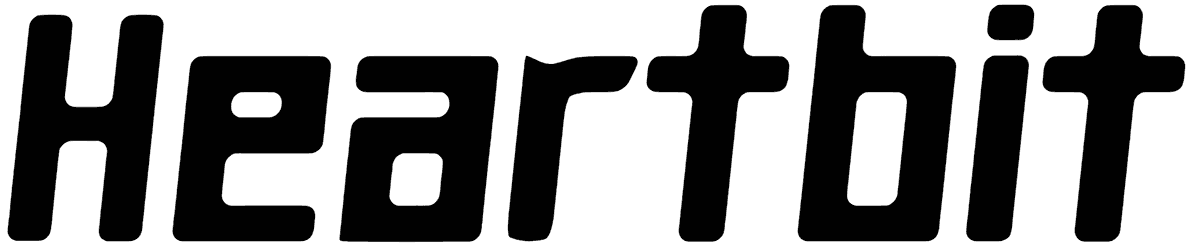
Heartbit Font
Heartbit is a stylish font that seems entertaining to the viewers. This techno font has a pleasant vibe, and you can use it for several cases, such as posters, video games, and advertisements.
The Heartbit font’s letters are bold and have a semi-square shape, catching your attention. Moreover, they are italicized with sharp edges, boosting the audience’s energy. So take it now and impress them.
The Heartbit typeface, created by Chris Ngalu is a sans serif display typeface inspired by the 90’s graphic designs and style of art.
The 90’s had a fun, vibrant, geometric, and pixelated style. The Heartbit typeface is based
off those elements but in a cool modern way without being too busy.The nostalgic feel to this typeface
is what makes it fun and catchy. So if you looking for a typeface with a fun personality then this is
your choice, just by the appearance of this typeface it takes you back to the 90s, make you think of
pacman, tetris,etc.